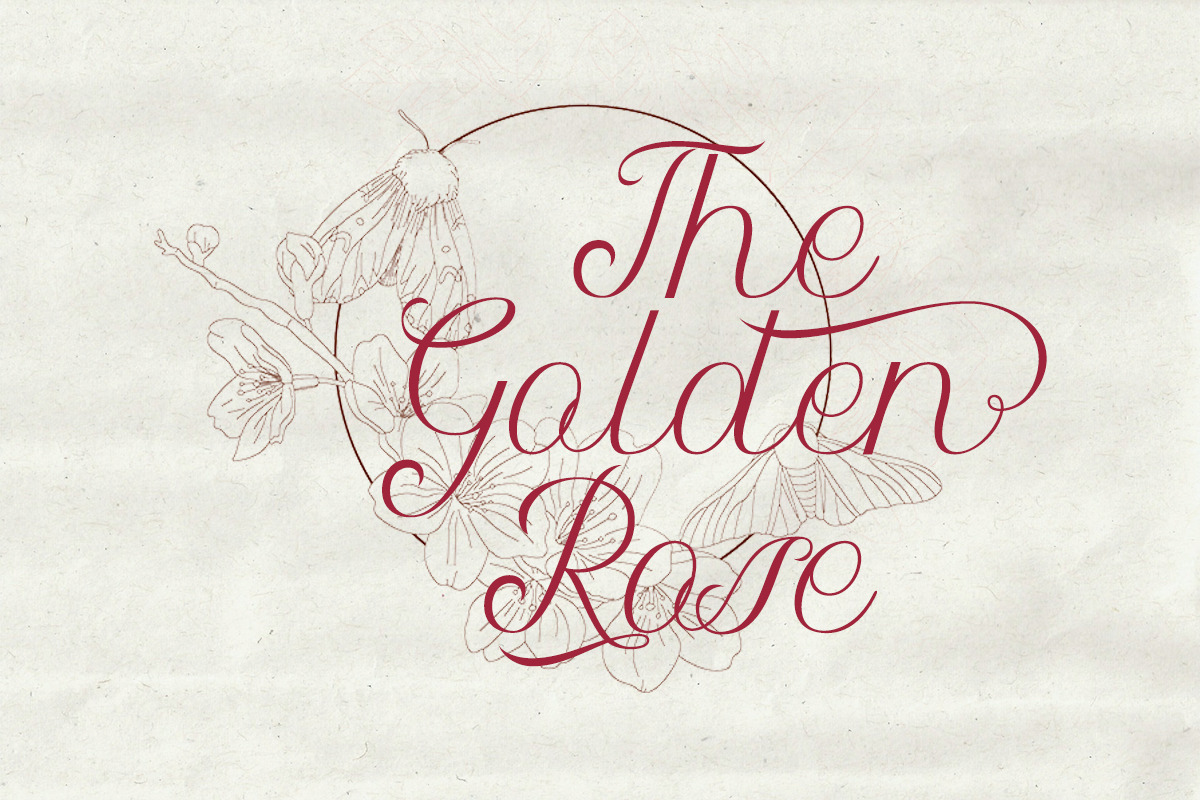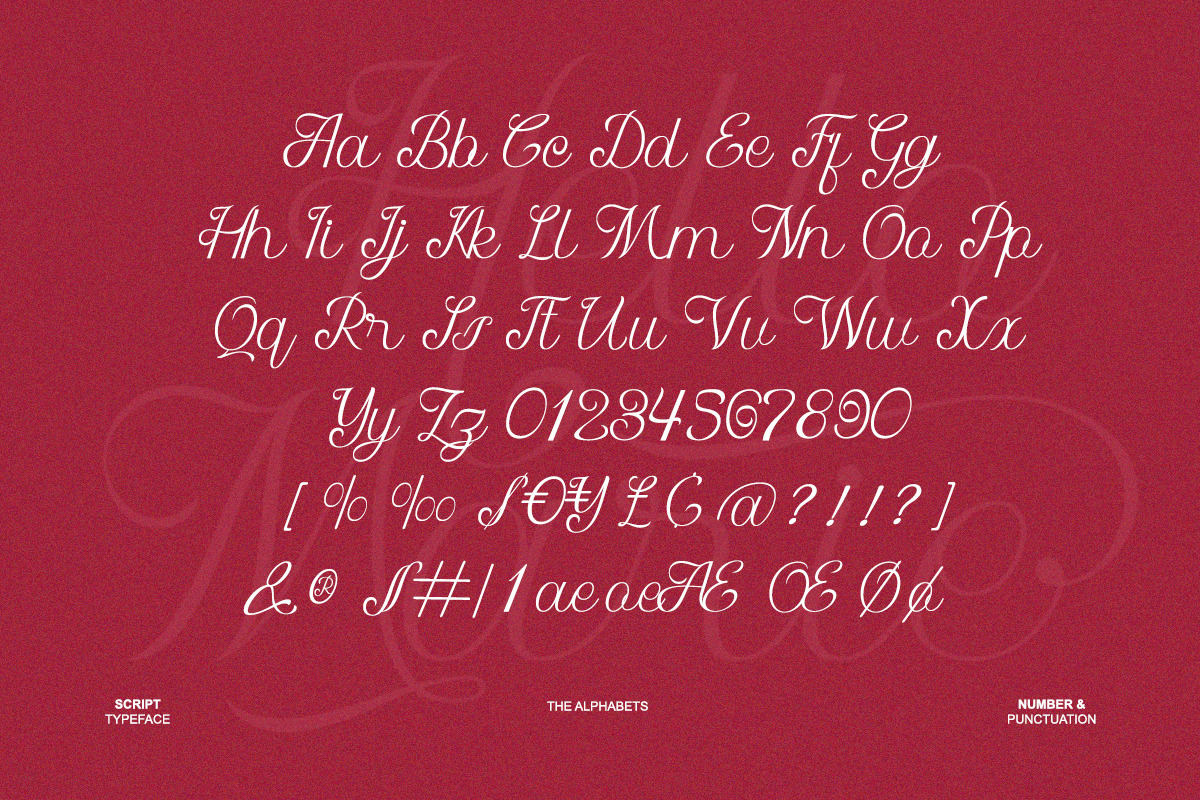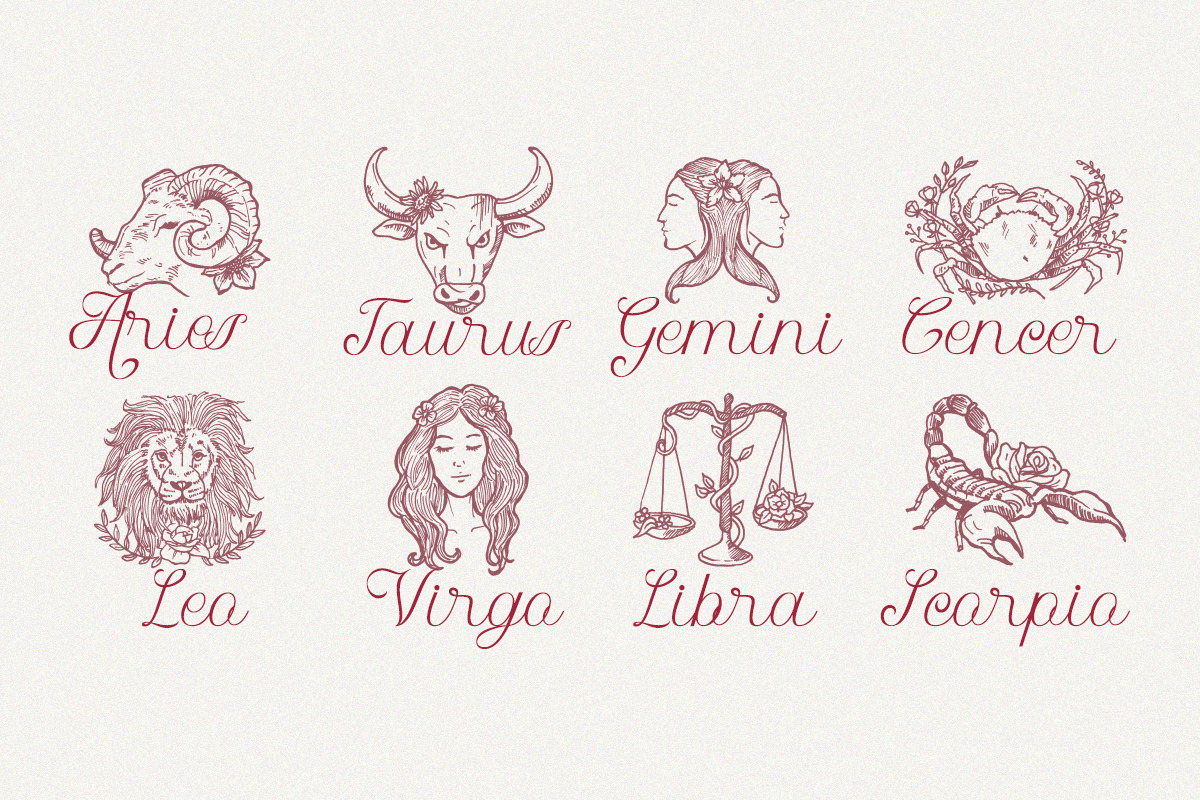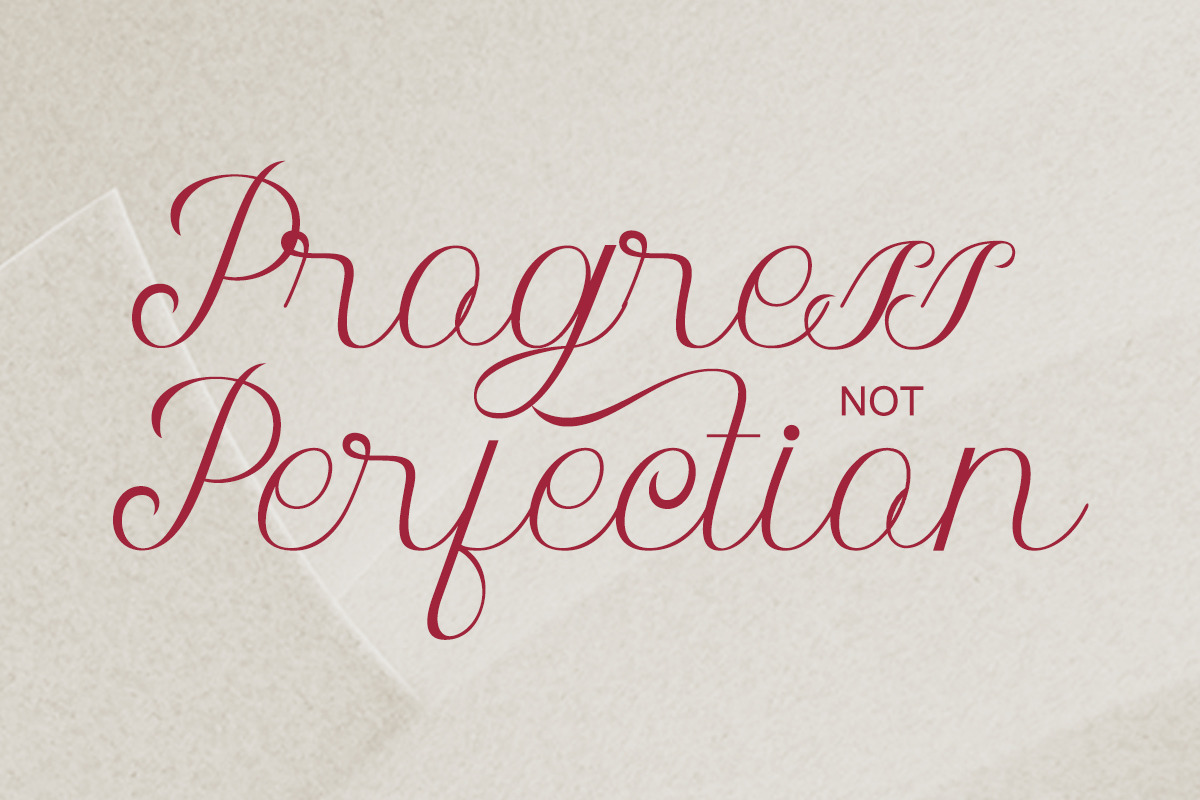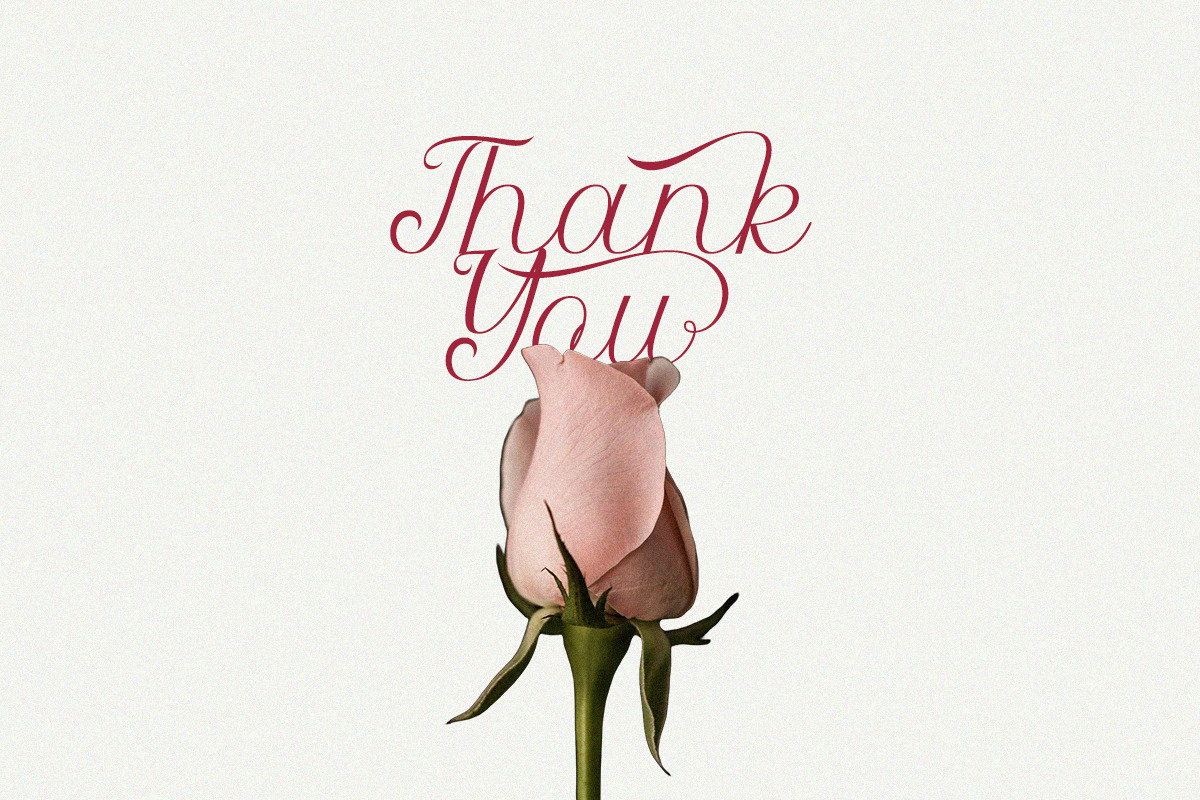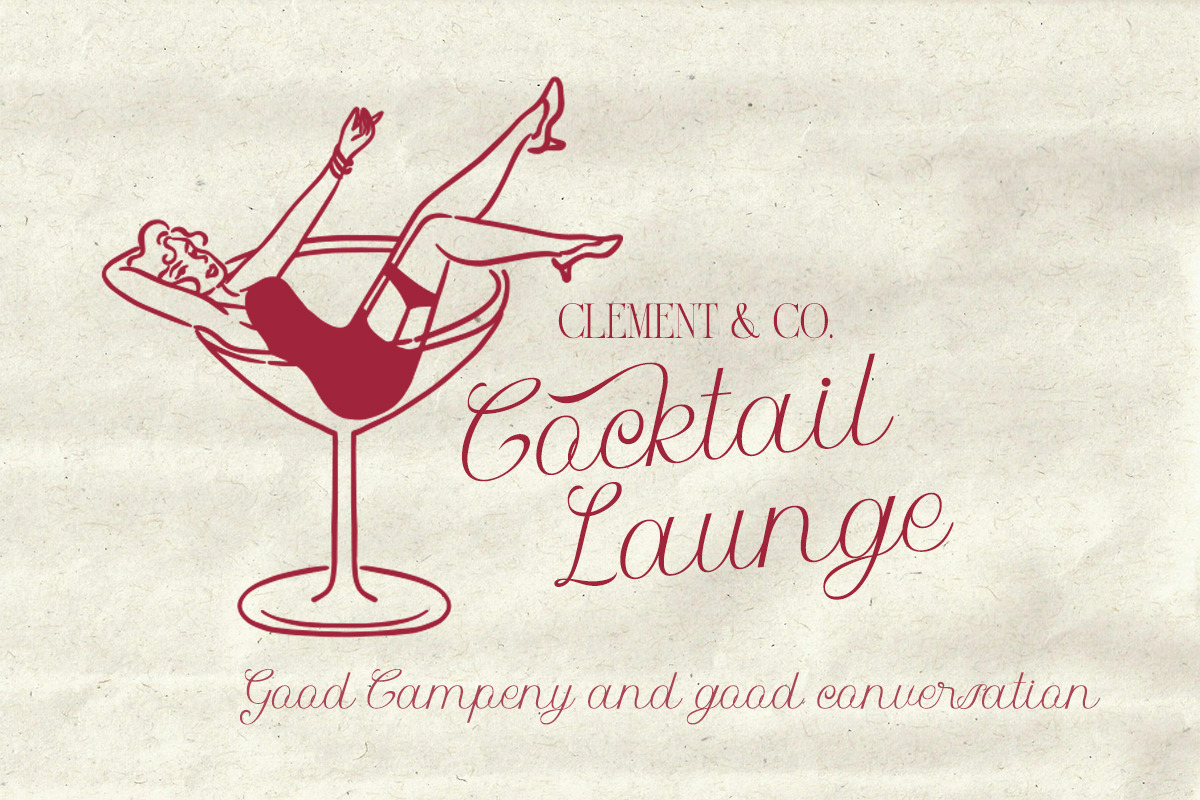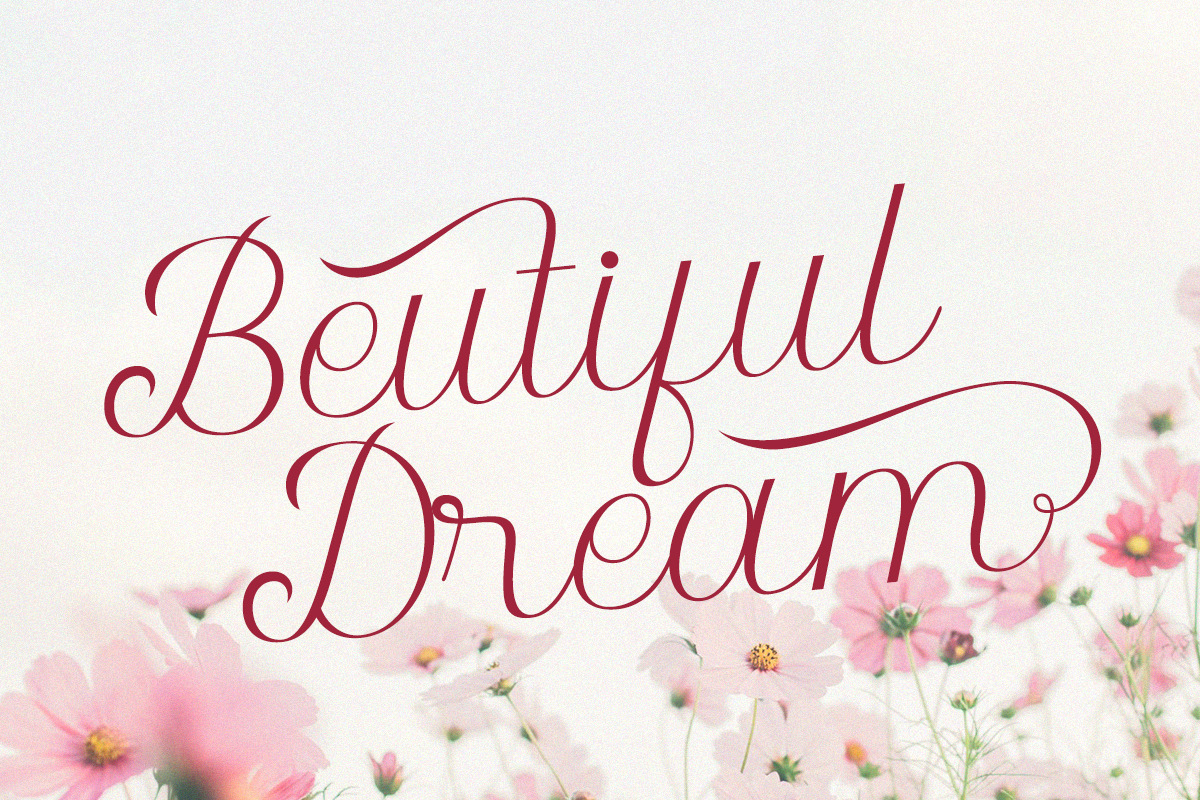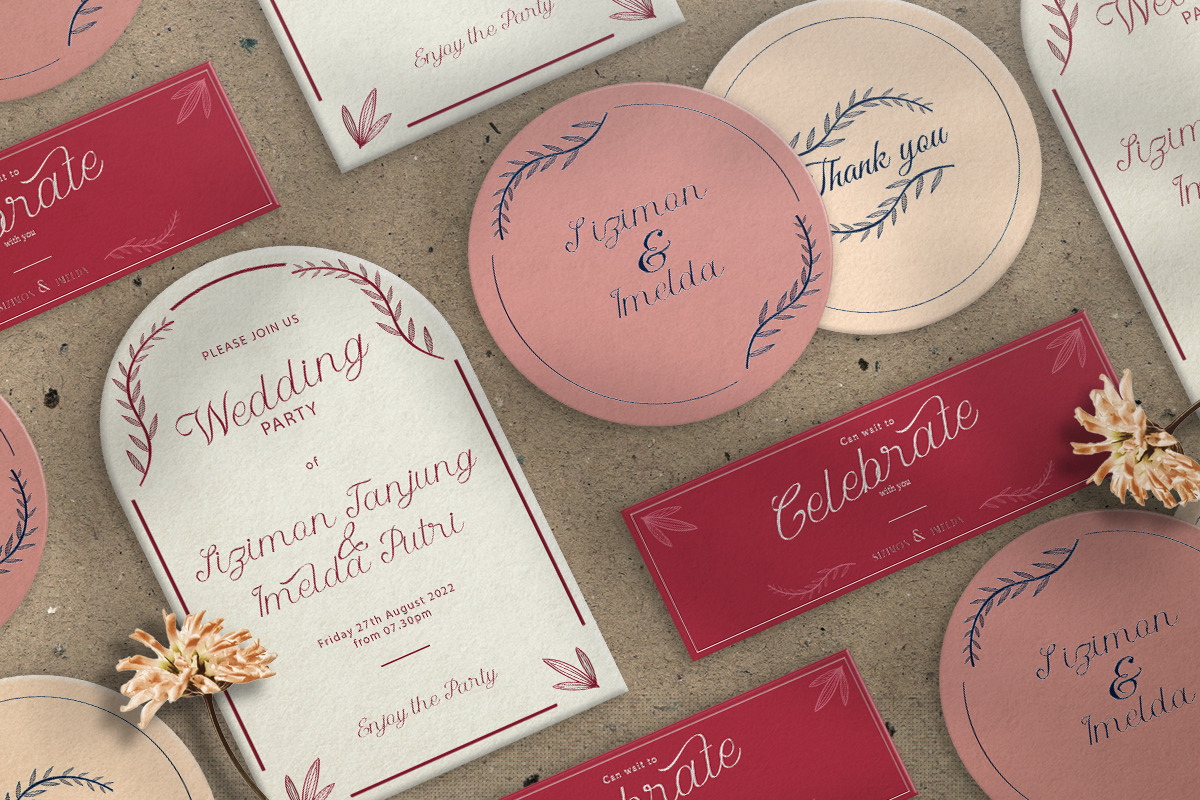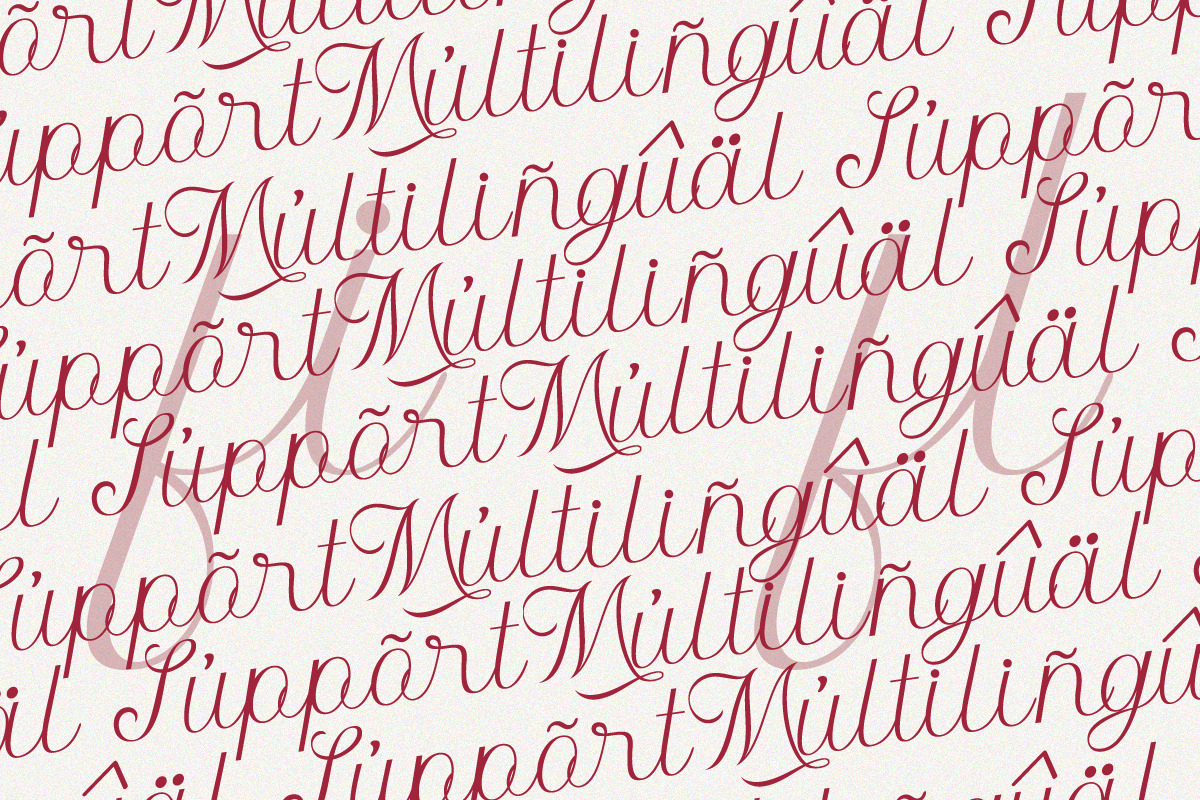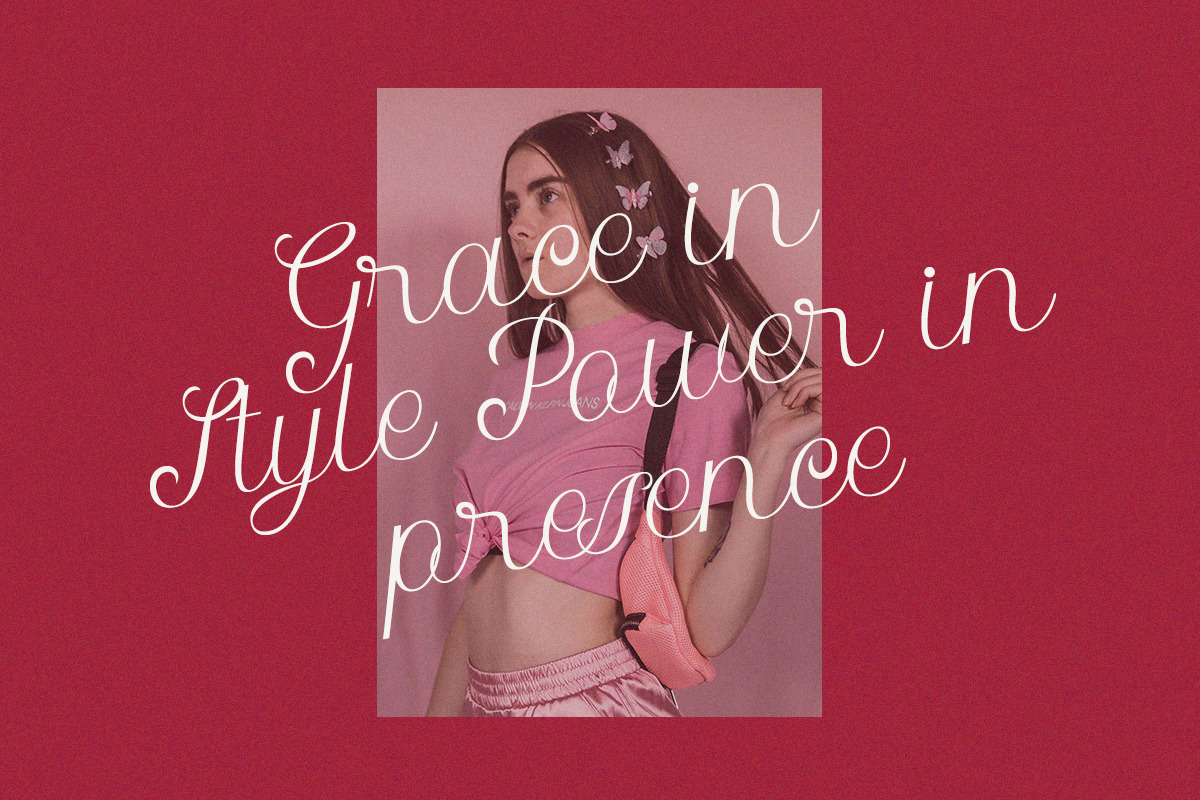
Hello Marie - Modern Calligraphy
Hello Marie is a modern calligraphy script font designed with elegance, flow, and charm.
It combines smooth handwritten strokes with graceful swashes, making it ideal for wedding invitations, branding, stationery, social media, and packaging design. This script font brings warmth, femininity, and a sophisticated handcrafted touch to every project.
Fall in love with the delicate beauty of Hello Marie.
- Modern calligraphy script font
- Flowing strokes with swashes
- Alternates & ligatures included
- Wedding invitations & stationery
- Branding & luxury packaging
- Greeting cards & quotes
- Elegant logos & fashion identity
- Social media content & templates
- Event posters & advertising
A graceful handwritten font for timeless elegance.